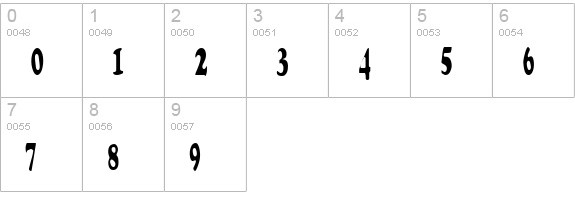
Stretch Plain Font Details
Stretch Plain font is a sleek and modern typeface that exudes sophistication and elegance. With its elongated letterforms and clean lines, this font is perfect for creating a contemporary and stylish look in your designs. The versatility of Stretch Plain font makes it suitable for a wide range of projects, from branding and advertising to web design and editorial content. What makes Stretch Plain font even more appealing is that it is available for free download at FontsMarket.com. This means you can easily access and use this beautiful font in your projects without any cost. Whether you are a professional designer or a hobbyist looking to elevate your creations, Stretch Plain font is a fantastic choice that will add a touch of class to your work. Download it today and start creating stunning designs with this stunning typeface.